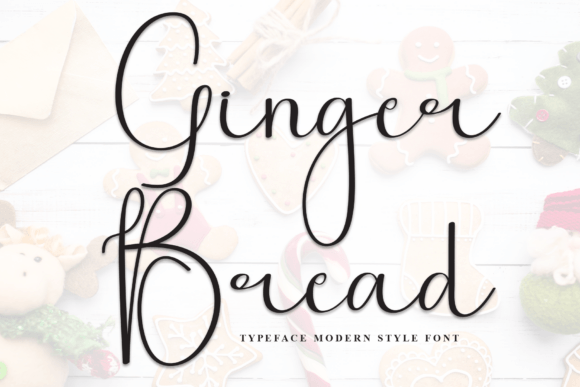
The Perfect Recipe for Whimsical Designs
As a designer, have you ever found yourself craving a font that exudes warmth and friendliness? A font that makes you feel like you’re baking a batch of fresh cookies, filling your heart with joy and your project with character? If so, you’re in for a treat, because today we’re introducing the delightful Ginger Bread Font – a charming handwritten display font that’s sure to add a pinch of magic to your designs.
This adorable font is more than just a pretty face – it’s a versatile tool that’s perfect for crafting wedding invitations, greeting cards, and any design that needs a dash of whimsy. Its cutesy and joyful demeanor makes it a valuable asset for designers looking to add an inviting character to their compositions. Whether you’re a seasoned pro or a budding designer, the Ginger Bread Font is sure to become your new go-to companion for creating projects that are as sweet as they are beautiful.
Ginger Bread Font Key Features
- Font Style: Script, Handwritten
- Size: 256 glyphs, including Latin characters, punctuation, and special characters
- Unique Characteristics: Includes flourishes and ornaments to create a festive atmosphere, ideal for holiday-themed designs
Ginger Bread Font Review
As a designer, I was excited to try out the Ginger Bread Font. Here’s my honest review.
- The font has a unique and festive feel to it, perfect for holiday-themed designs.
- The bold weight is great for headlines and titles, adding a nice pop of color and texture.
- The font is highly customizable, allowing you to adjust the spacing, size, and color to suit your design needs.
- The font can be a bit too playful and may not be suitable for all types of designs, especially those requiring a more serious tone.
- The font lacks consistency in its letterforms, with some characters feeling a bit rough or uneven.
- The font is not optimized for small text sizes, which can make it difficult to read at smaller sizes.
Overall, I think the Ginger Bread Font is a great choice for holiday-themed designs or projects that require a playful, festive feel. However, it may not be the best choice for more serious or professional designs. With a bit of tweaking and adjustment, it can be a great addition to any designer’s toolkit.
Tips for Getting the Most Out of Ginger Bread Font
Use Ginger Bread Font for festive and playful designs, such as holiday cards and party invitations.
Combine Ginger Bread Font with other fonts and design elements to create a unique and eye-catching design.
Ginger Bread Font is commonly used for:
- Holiday cards and party invitations
- Festive social media graphics
- Playful branding and logos
- Children’s birthday party decorations